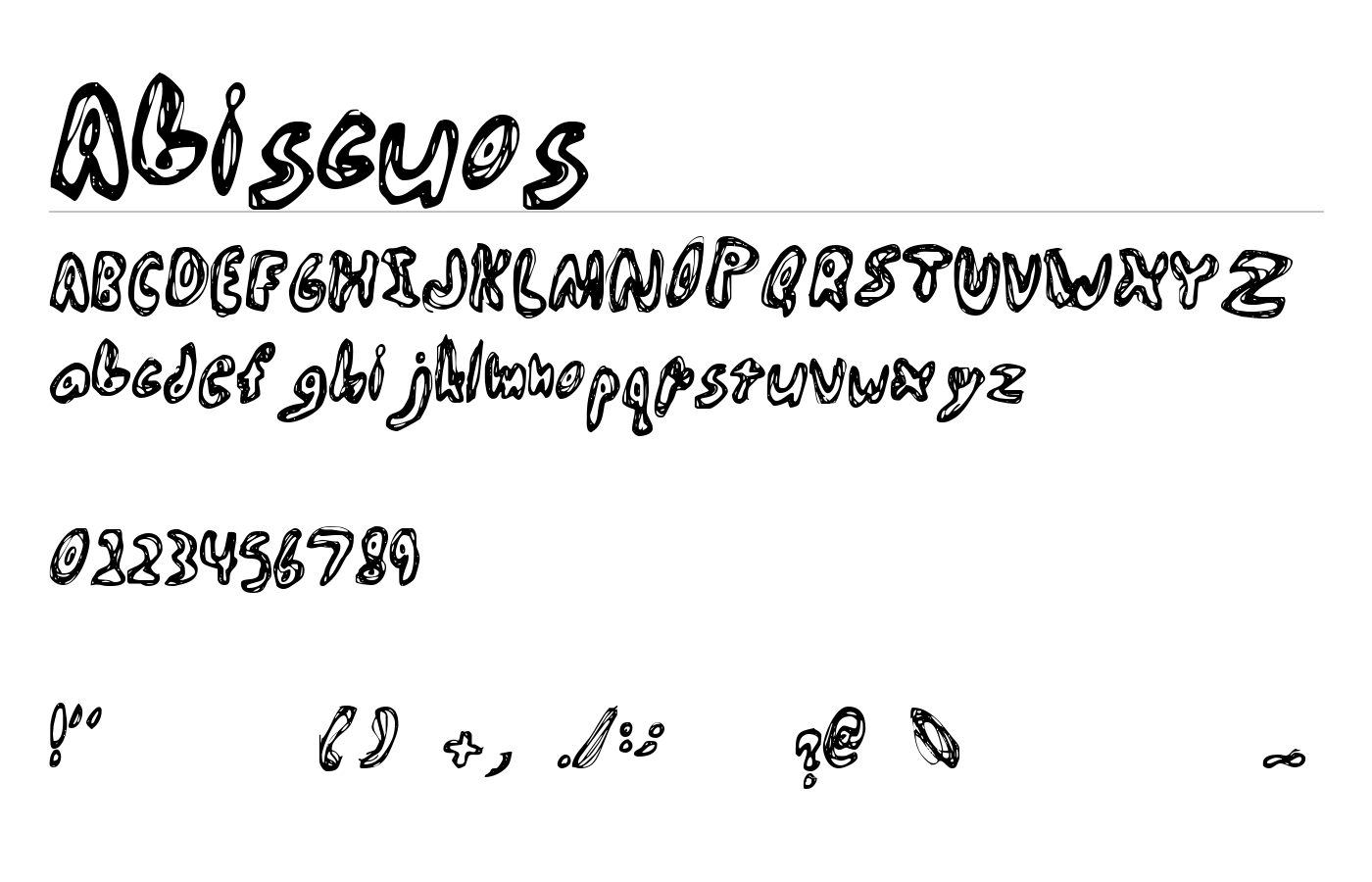
Abiscuos is a playful, hand-drawn sans serif font with a bold, chunky weight and an energetic, irregular stroke style that gives it a quirky, artistic vibe. Its uneven shapes and lively, sketch-like texture make it ideal for creative projects, casual branding, and fun headlines where a unique, informal personality is desired. This font works best in eye-catching posters, youth-focused designs, and informal packaging, adding an approachable and dynamic feel.
Abiscuos Font